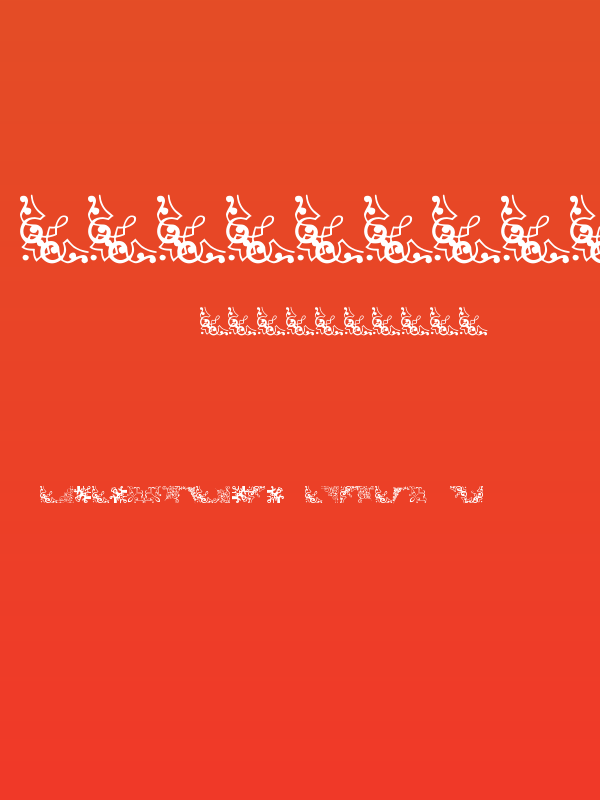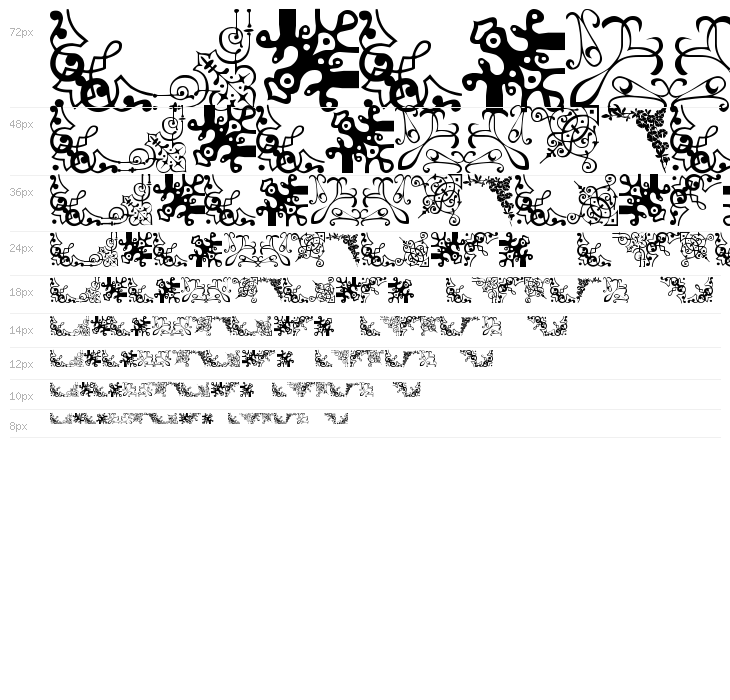
Vintage Decorative Corners 13 Font
Vintage Decorative Corners 13 Description
Highly ornamental and intricate decorative elements featuring swirling, floral, and corner motifs, designed to create borders and frames with a vintage aesthetic. The glyphs are complex, with heavy use of flourishes and embellishments, evoking a sense of historical elegance.
| Overall Style | Vintage, Decorative |
| Use Case | Borders, Frames, Decorative accents |
| Proposed Projects | Wedding invitations, certificates, vintage posters, book covers, decorative frames, scrapbooking, and event programs. |